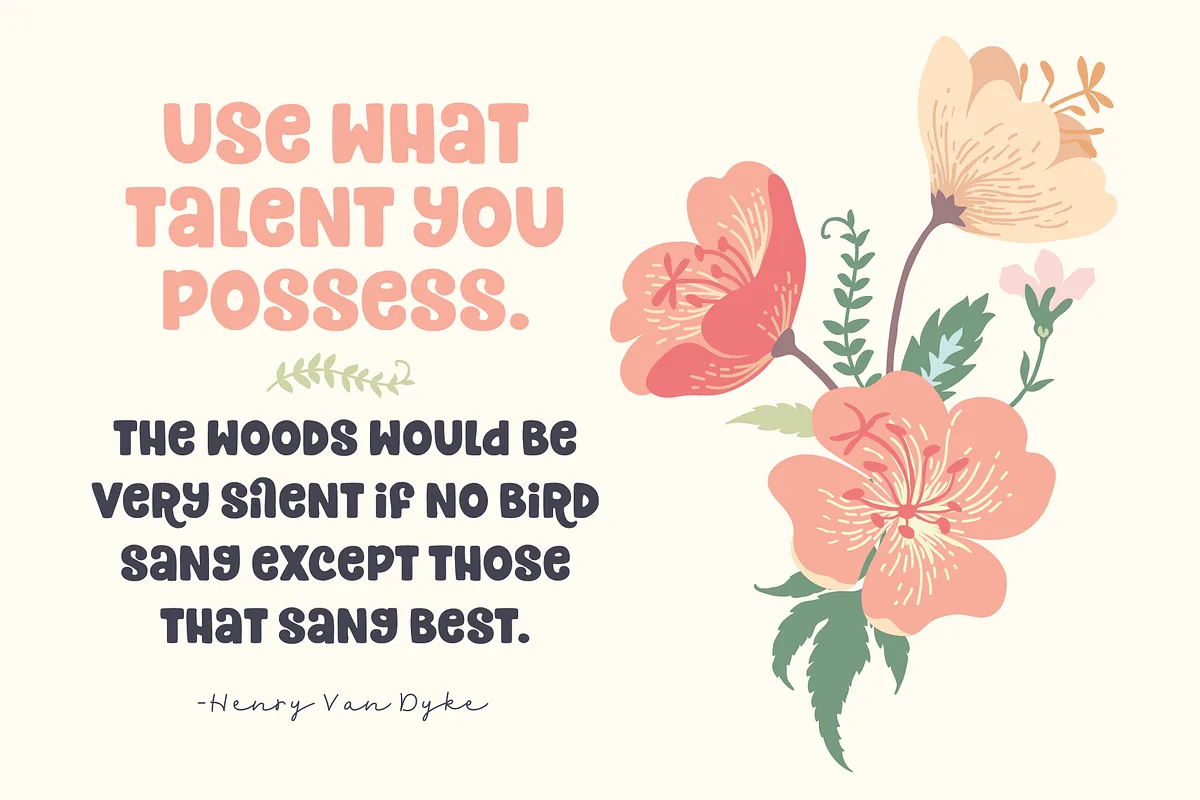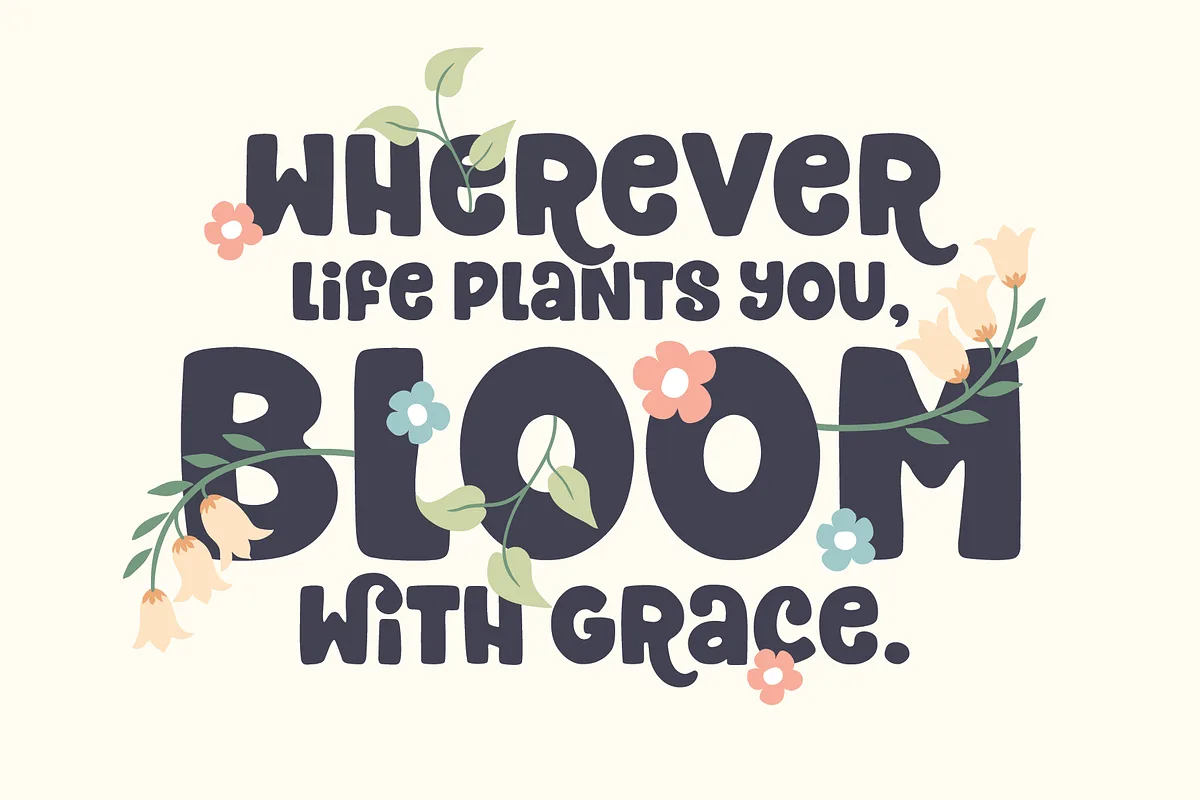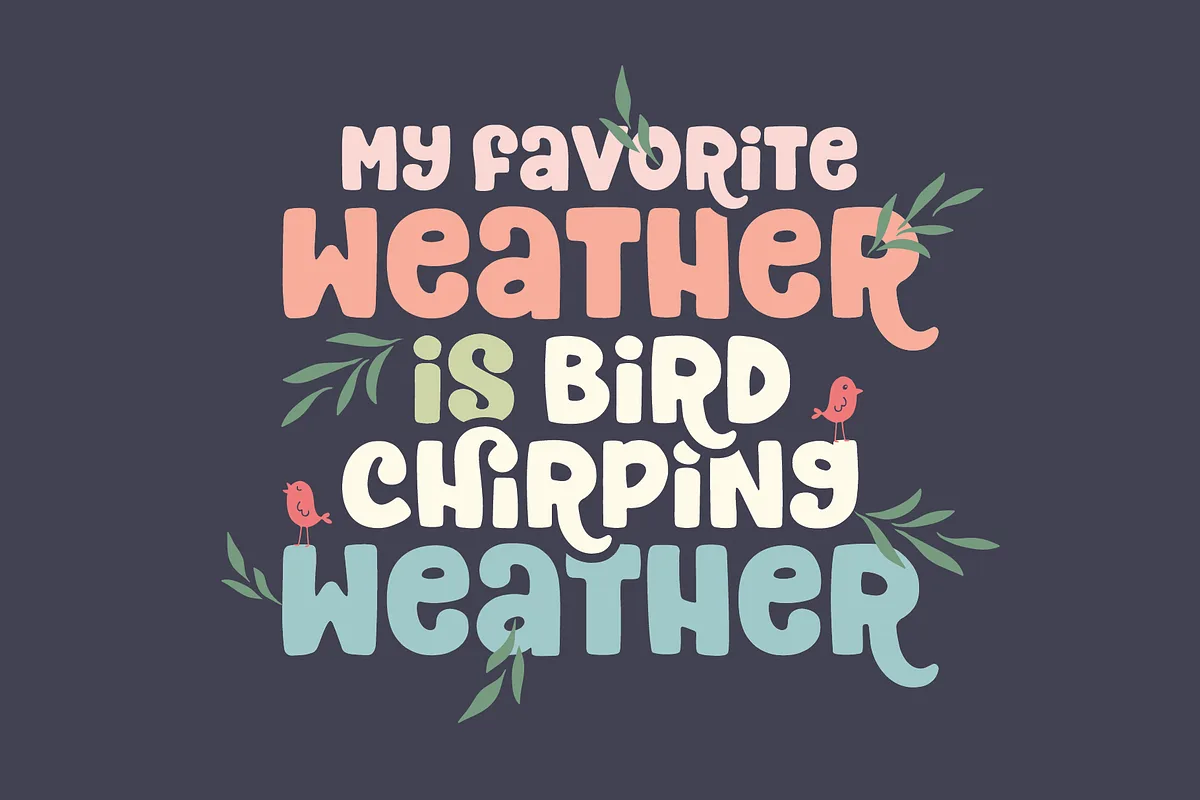
Chirp Font
Chirp is a bold and stylish, hand-drawn font. It’s characters have a simplicity and charm that are perfect for big, bold headings. Chirp also includes a few ligatures and alternate characters to add that extra bit of personality.